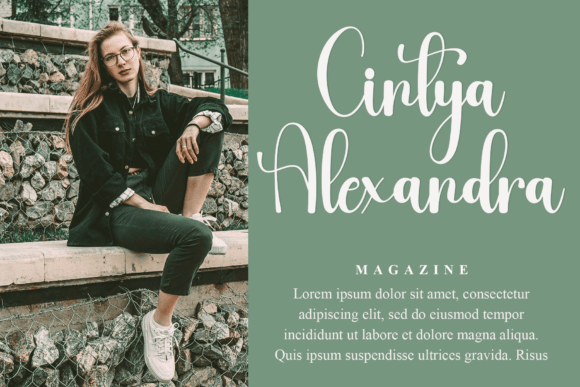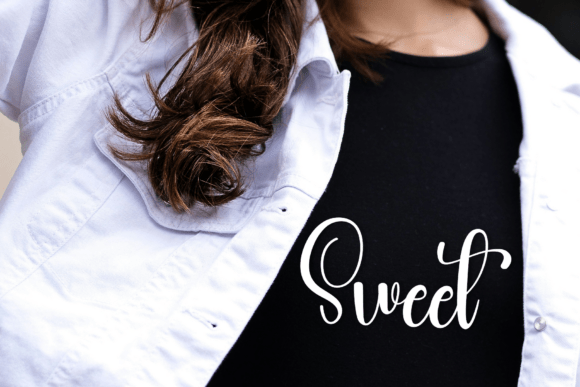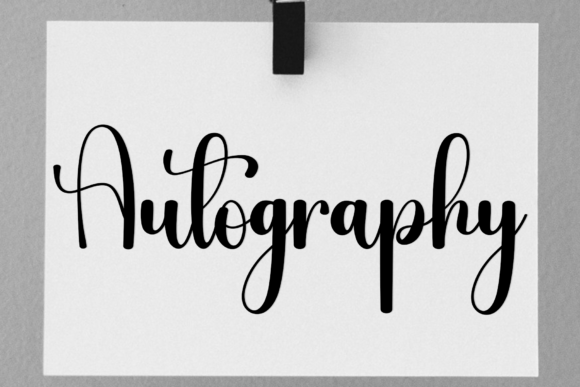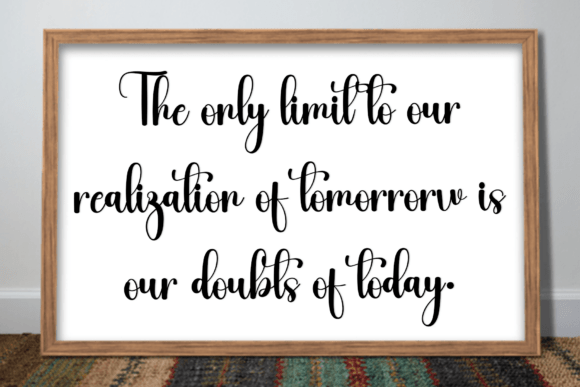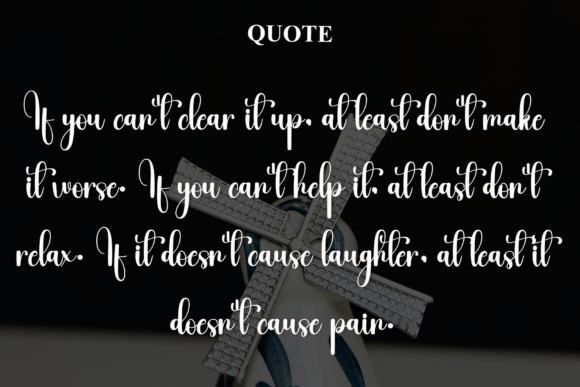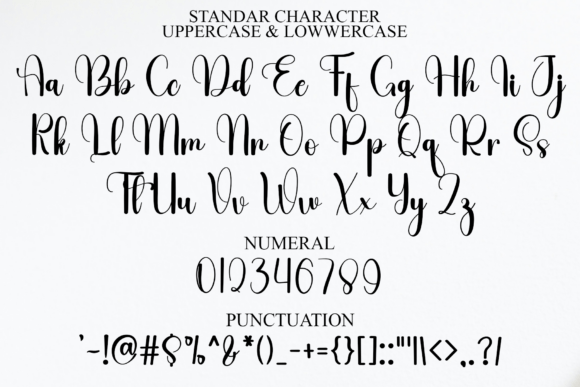
Introducing English Font: The Ultimate Holiday Typeface
Are you looking for a font that embodies the spirit of the holiday season? Look no further than English Font, a festive and merry typeface that is sure to add a touch of enchantment to your designs. With its decorative elements and whimsical flair, this font is perfect for greeting cards, gift tags, and holiday-themed projects.
English Font is a unique and captivating typeface that captures the essence of the holiday season. Its decorative elements and whimsical flair make it perfect for adding a touch of magic to your designs. Whether you’re creating greeting cards, gift tags, or holiday-themed projects, this font is sure to bring a cheerful and nostalgic ambiance to your words.
English Font is a versatile typeface that is perfect for designers and crafters alike. Its festive and merry design makes it ideal for holiday-themed projects, while its whimsical flair adds a touch of personality to any design. Whether you’re creating digital or physical products, this font is sure to make your designs stand out.
One of the best features of English Font is that it is PUA encoded, which means you can access all of the amazing glyphs and ligatures with ease. This makes it easy to add decorative elements and special characters to your designs, giving them a unique and personalized touch.
Uses for English Font
English Font is a versatile typeface that can be used for a variety of projects, including:
- Greeting cards: Add a touch of festive cheer to your holiday greeting cards with English Font.
- Gift tags: Make your gift tags stand out with the whimsical flair of English Font.
- Holiday-themed projects: Perfect for creating festive and merry designs for the holiday season.
- Digital products: Use English Font to add a touch of personality to your digital products, such as printable art and planners.
- Physical products: Add a touch of magic to your physical products, such as stickers, stamps, and other craft supplies.
Why Choose English Font?
There are many reasons why English Font is the perfect choice for your holiday designs. Here are just a few:
- Unique and captivating design: English Font is a one-of-a-kind typeface that is sure to make your designs stand out.
- Festive and merry: Perfect for adding a touch of holiday cheer to your designs.
- Whimsical flair: Adds a touch of personality and magic to your designs.
- PUA encoded: Easy access to amazing glyphs and ligatures.
- Versatile: Perfect for a variety of projects, from digital to physical products.
English Font is a festive and merry typeface that is sure to add a touch of enchantment to your designs. With its decorative elements and whimsical flair, it’s perfect for holiday-themed projects, greeting cards, gift tags, and more. And with PUA encoding, you can access all of the amazing glyphs and ligatures with ease. So why wait? Let your typography shine with the magic of Beautiful Font!